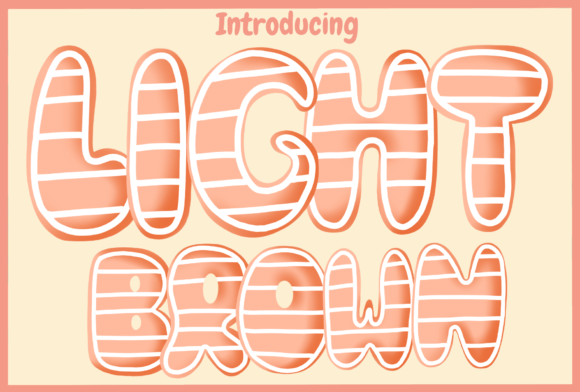
Behold, the Light Brown Font, a beacon of effervescent charm and sophistication, awaits your creative touch to transform your designs into captivating masterpieces. Dive into a world of whimsy and elegance with this decorative font, meticulously crafted by Itme_digitalart, renowned for their artistic brilliance.
Unleash your inner artist and embrace the boundless possibilities this font presents. With its playful curves and graceful strokes, the Light Brown Font dances across your screen, beckoning you to create eye-catching posters that demand attention, greeting cards that warm hearts, t-shirts that ignite conversations, branding materials that exude professionalism, and quotes that inspire souls.
This font is not merely a collection of letters; it's a pathway to express your individuality, a key to unlock your imagination. Whether you're a seasoned designer or embarking on your creative journey, the Light Brown Font becomes your trusted companion, guiding you through the realm of stunning visuals.
Step into the spotlight and let your designs shine with the Light Brown Font. Its versatility knows no bounds, captivating audiences with its charm in presentations, websites, social media graphics, and countless other digital creations. With this font as your ally, you'll leave a trail of awe-inspiring visuals wherever you go.
The Light Brown Font is more than just a font; it's an experience, a journey of self-expression and creativity. It's an invitation to break free from the ordinary and embrace the extraordinary, leaving an indelible mark on the world with your unique designs.